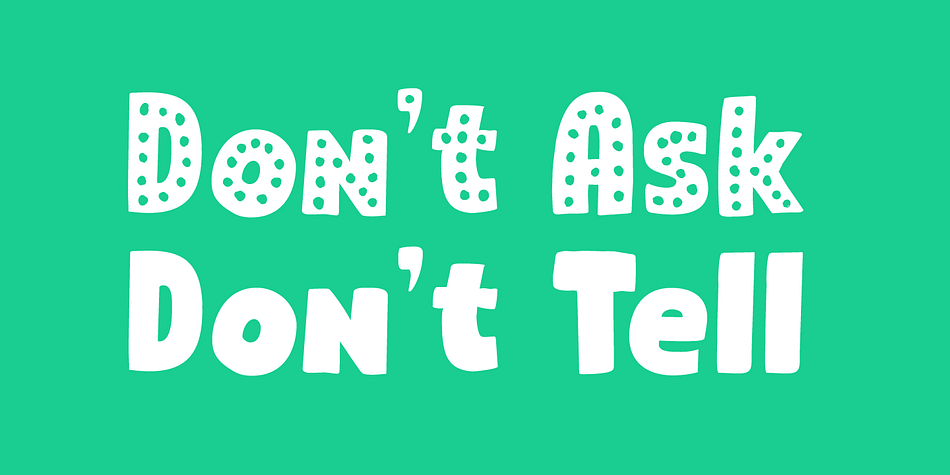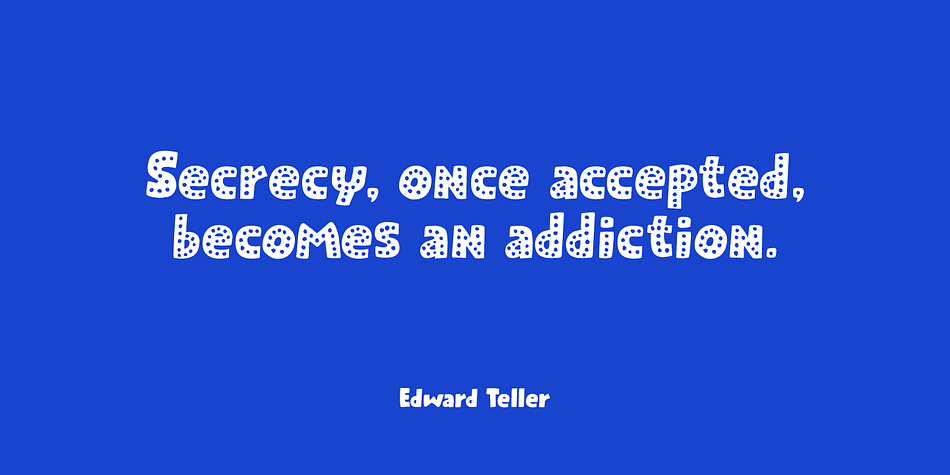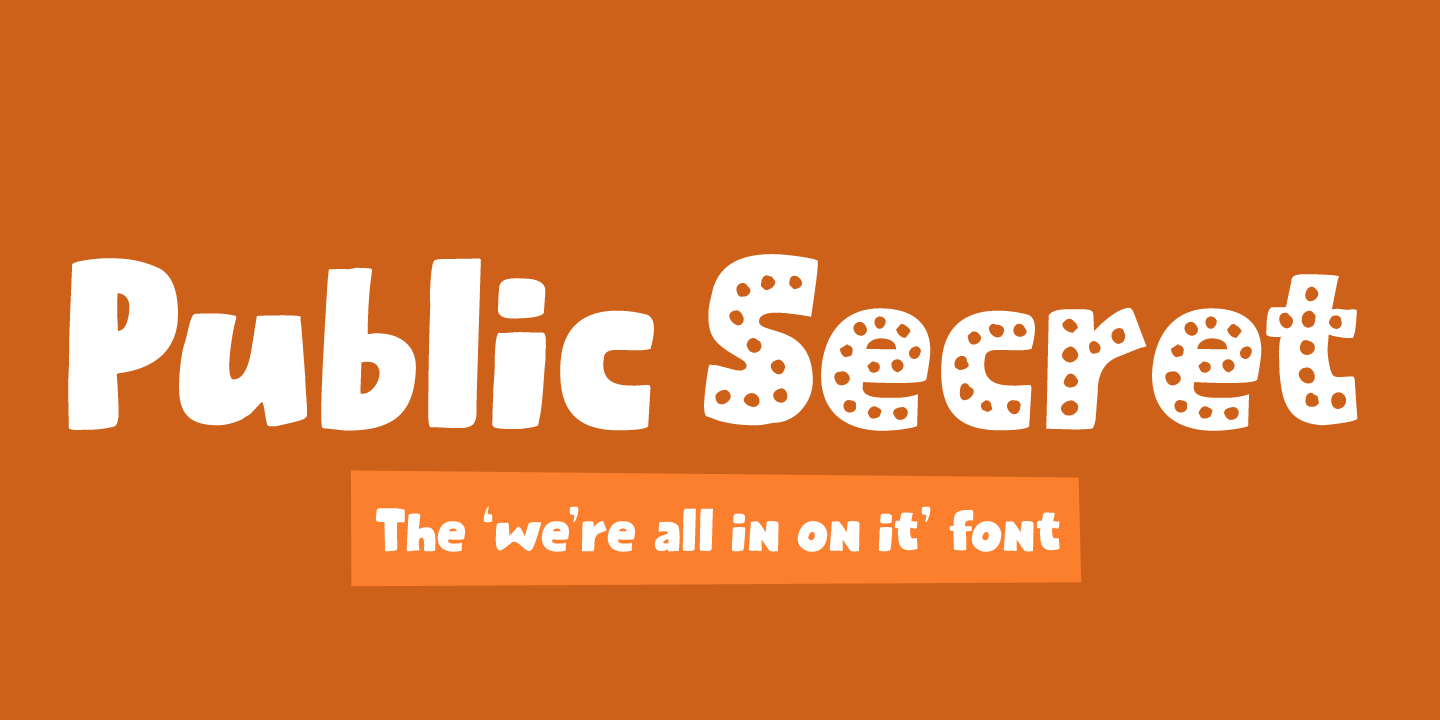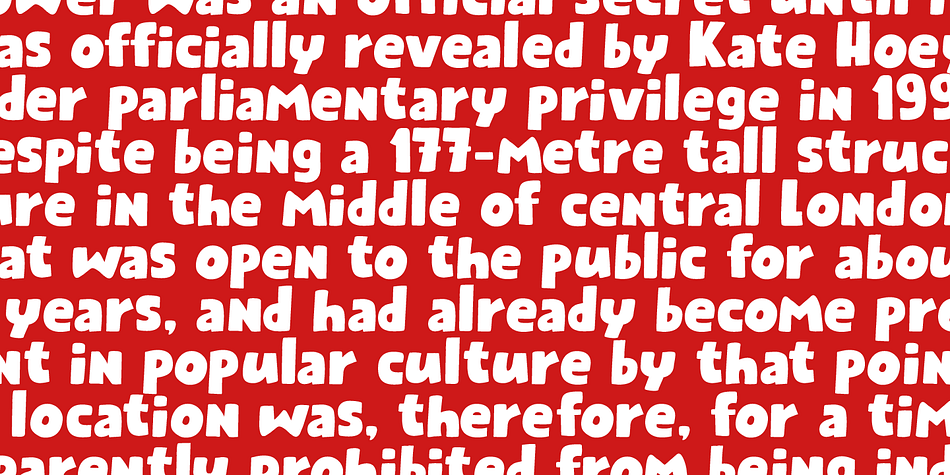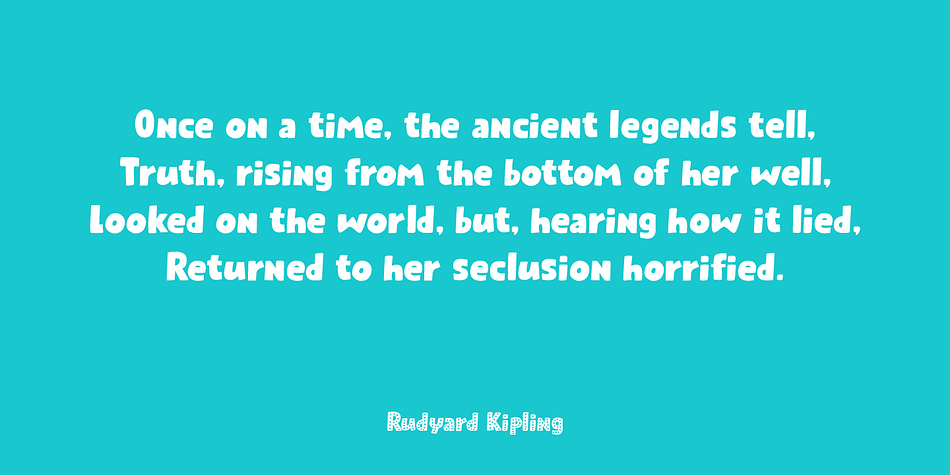
Designed by David Kerkhoff, Public Secret is a hand display font family. This typeface has two styles and was published by Hanoded.
A Public Secret (or Open Secret) is something that is widely known, although it is not supposed to be. Public Secret is a hand drawn font (I used a fineliner) that I made in between building a shower, a toilet and a laundry room… Yes, it’s all in a day’s work!